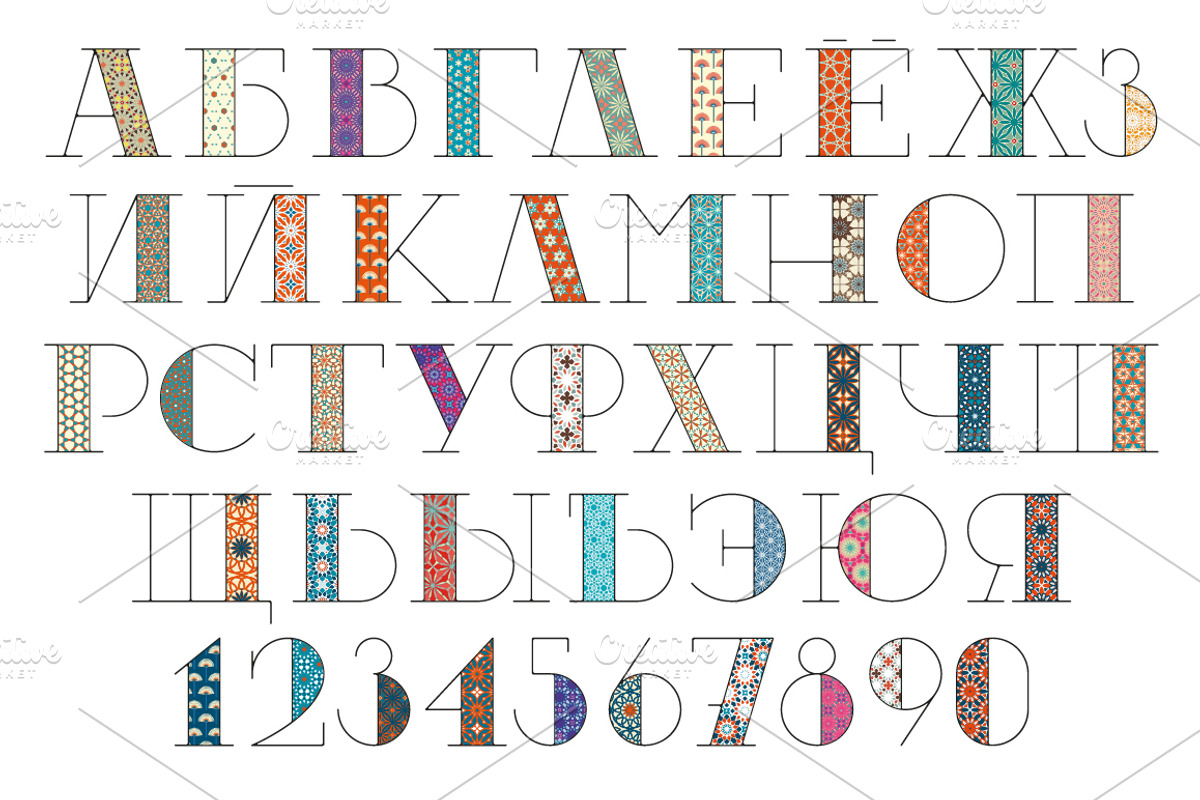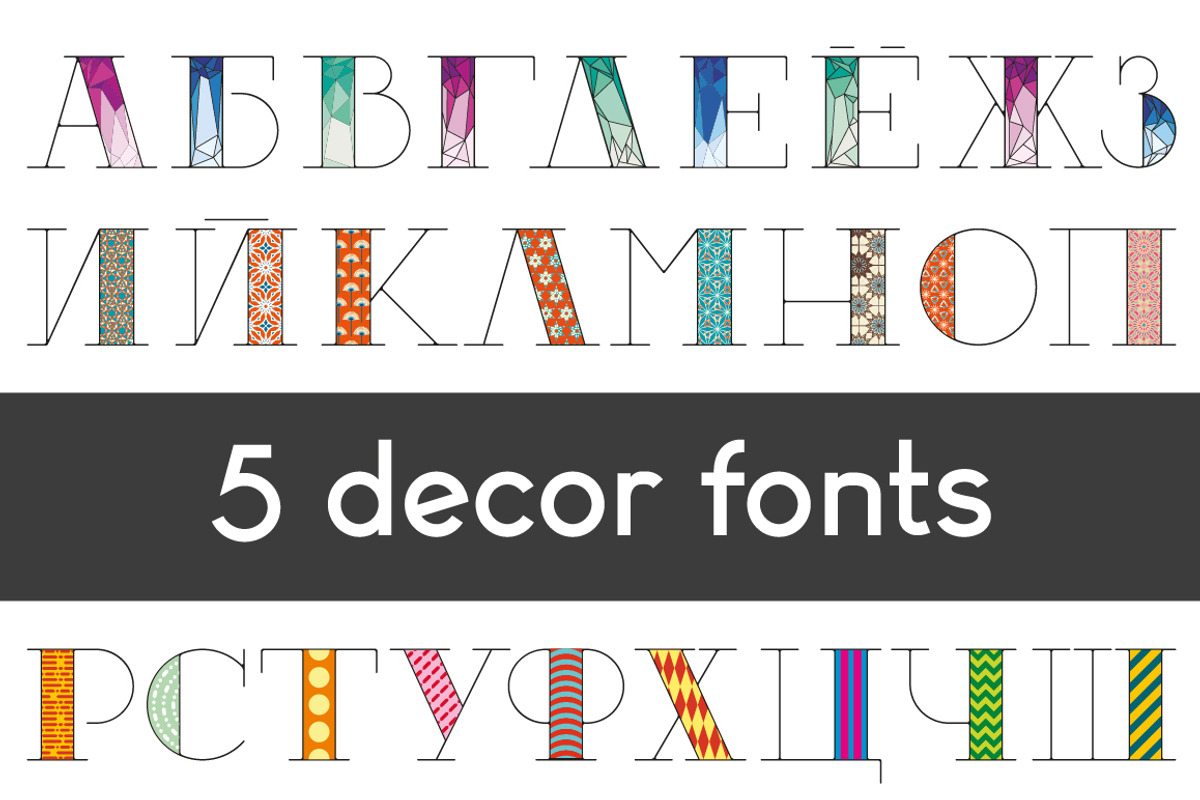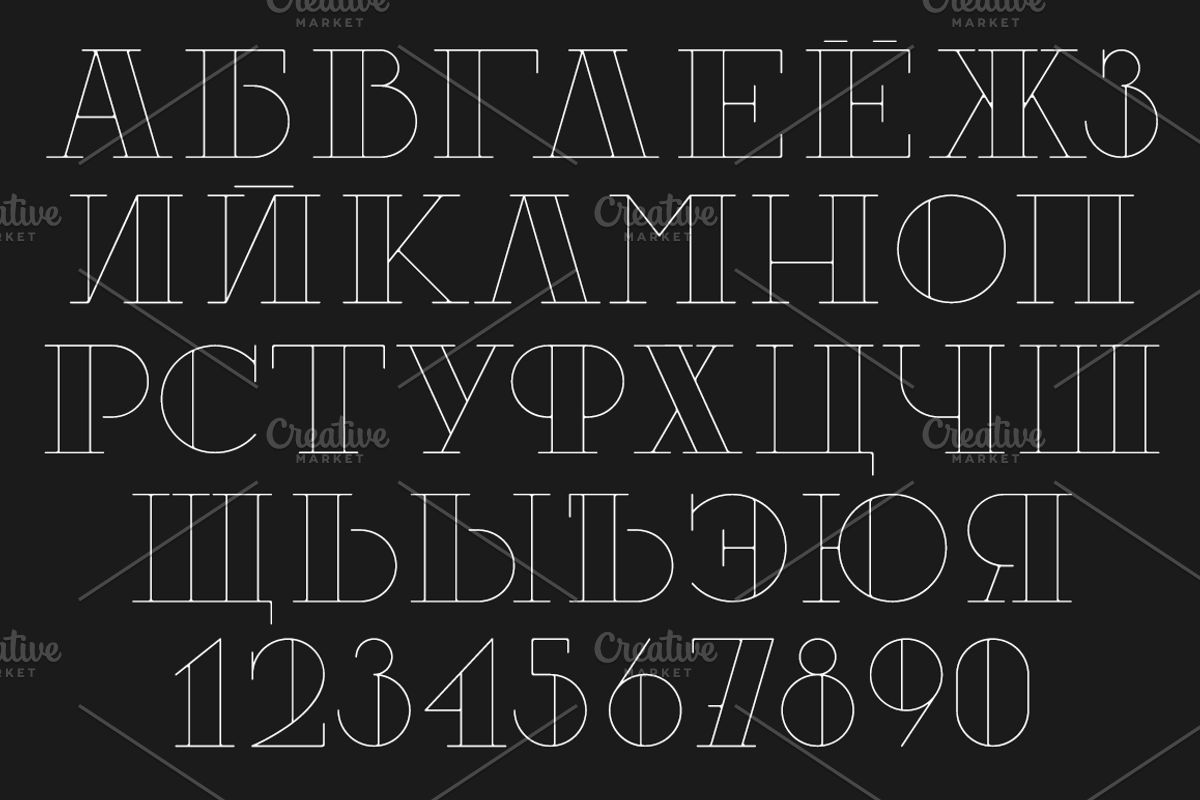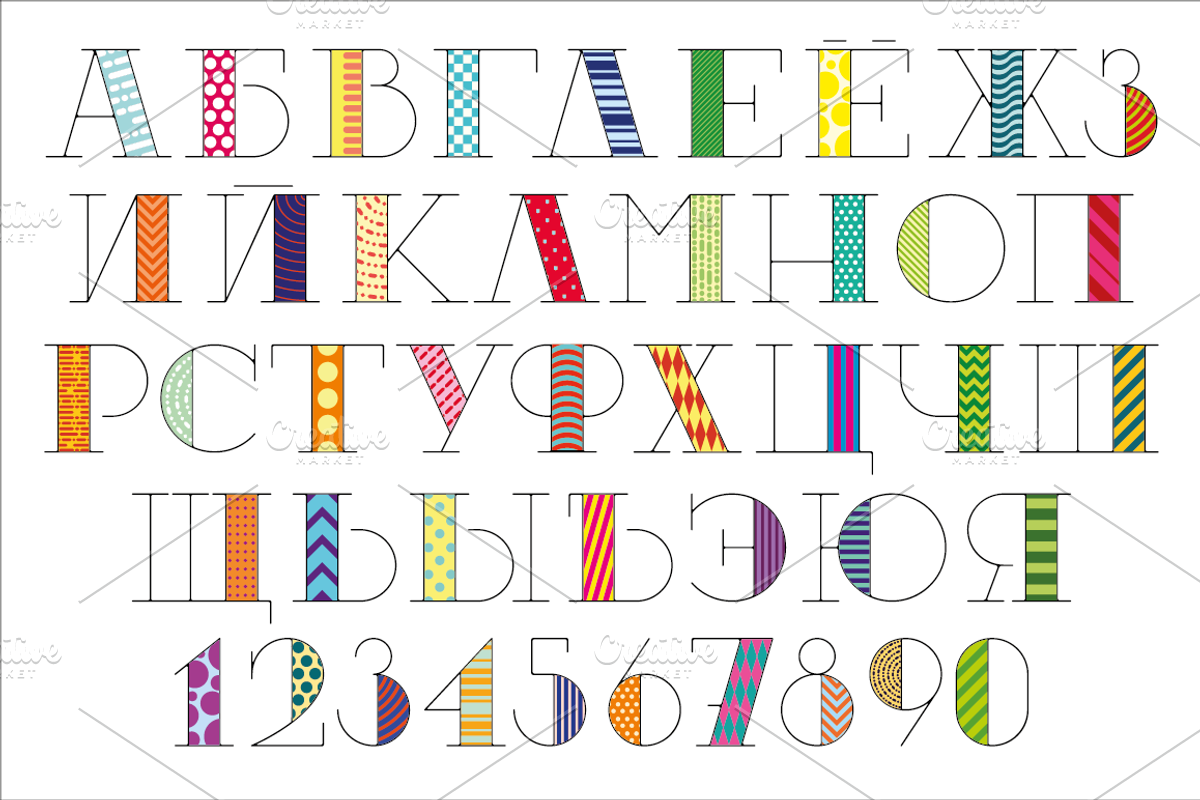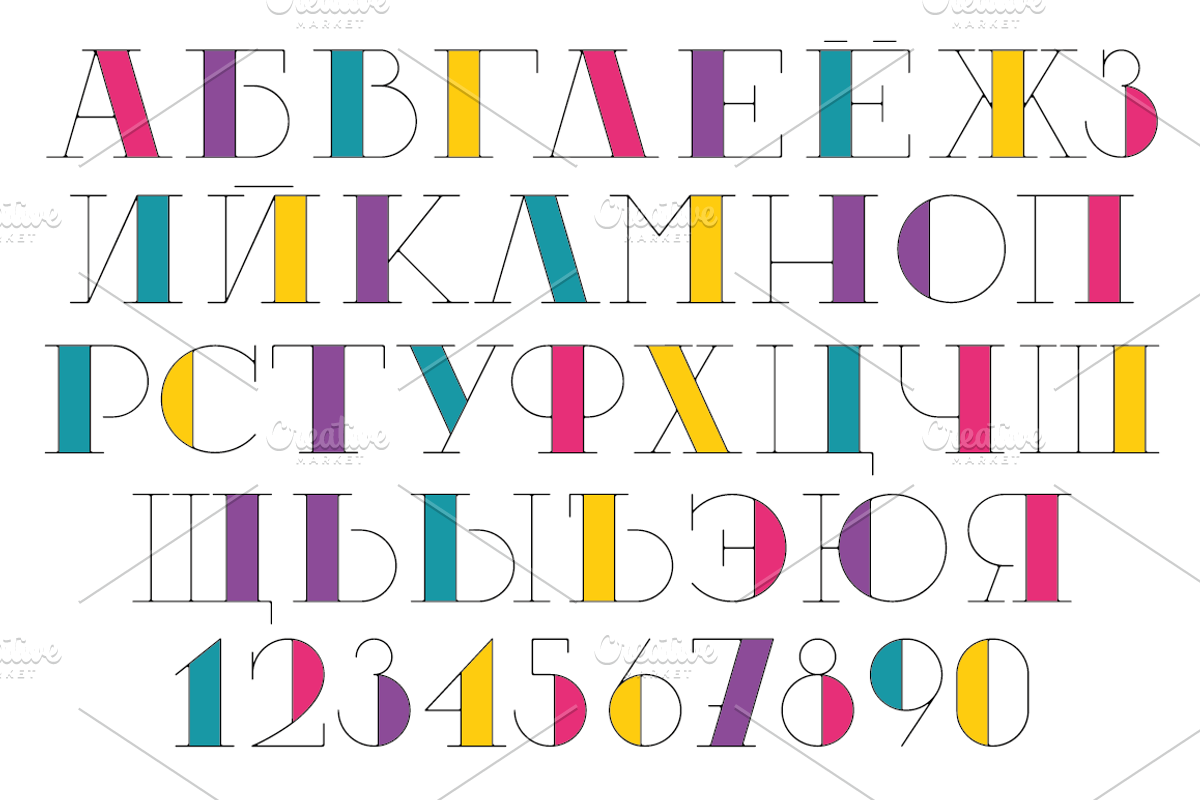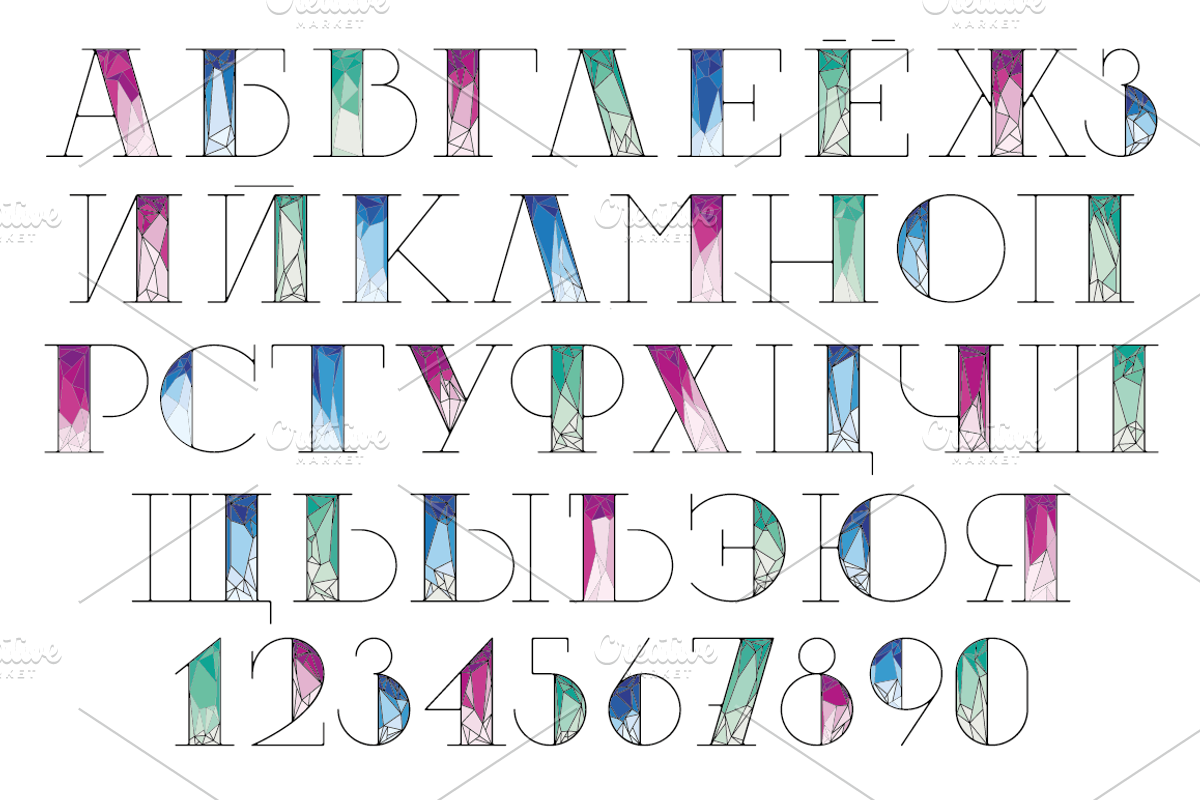
Five variations of font decoration
First I wanted to make only polygonal version of font decoration, but it came out so that there was a lot more possible variations! This decorative poster fonts will be perfect for many different projects: quotes, blog headers, posters, branding, logo, fashion, apparel, invitation, stationery, etc. This is Cyrillic font set, if you are searching for Latin, here it is: https://crmrkt.com/DGrK1